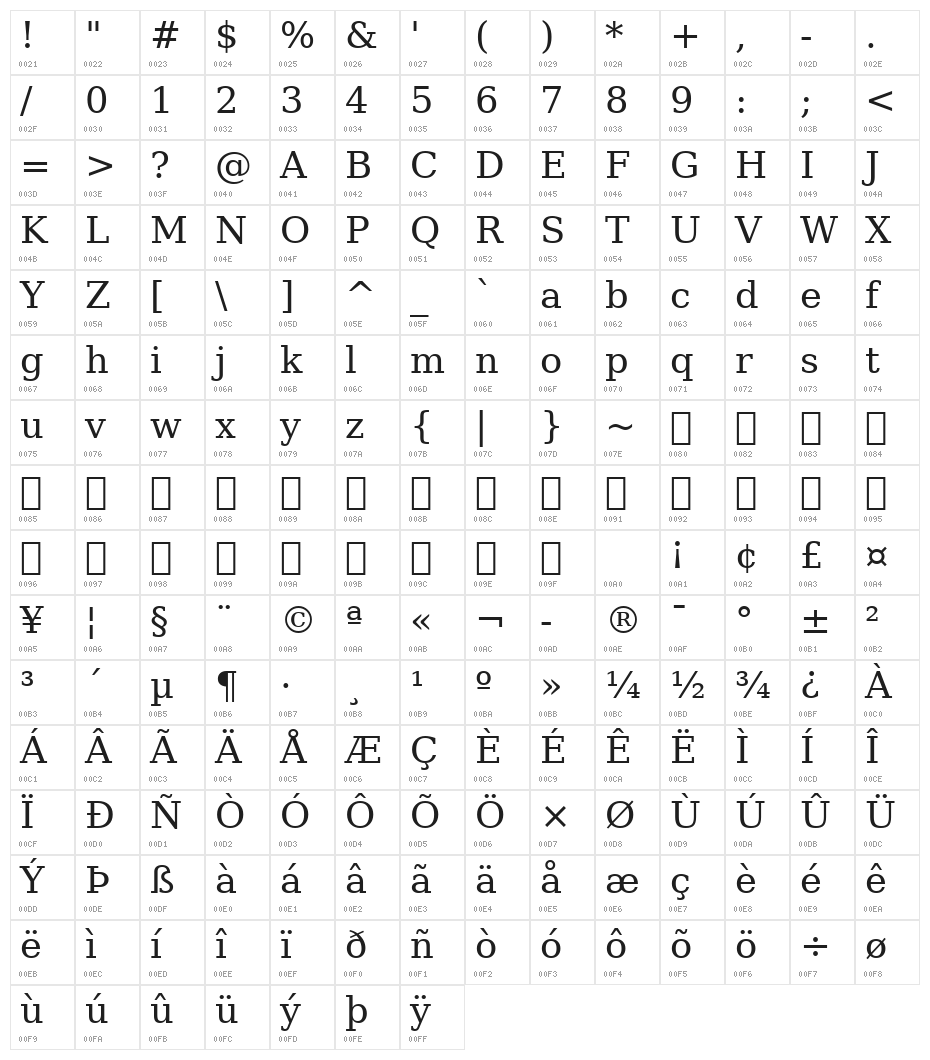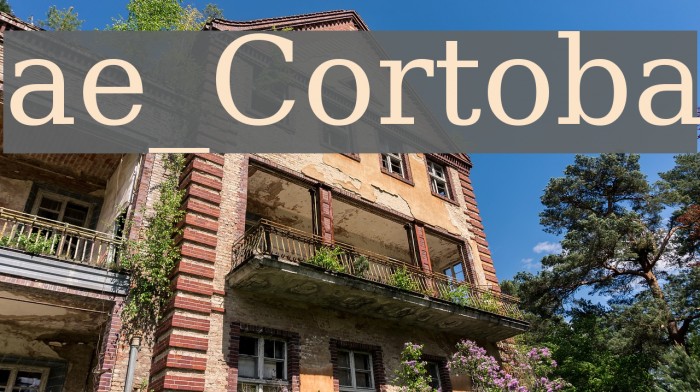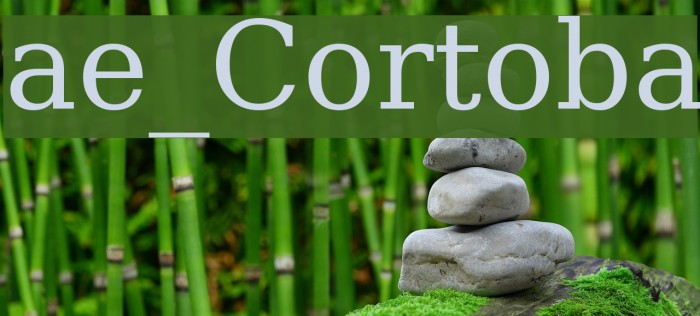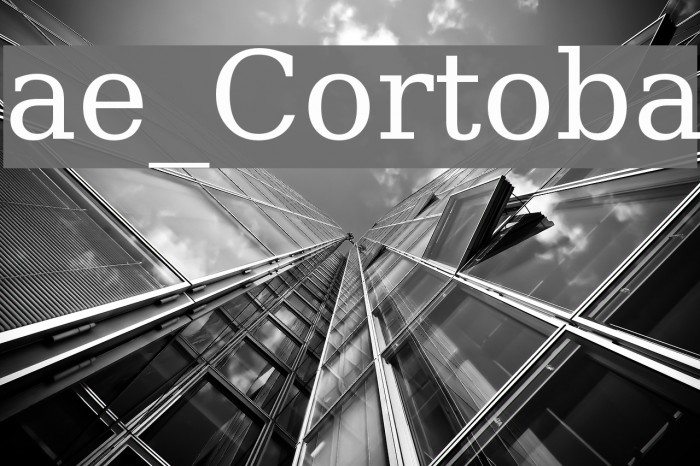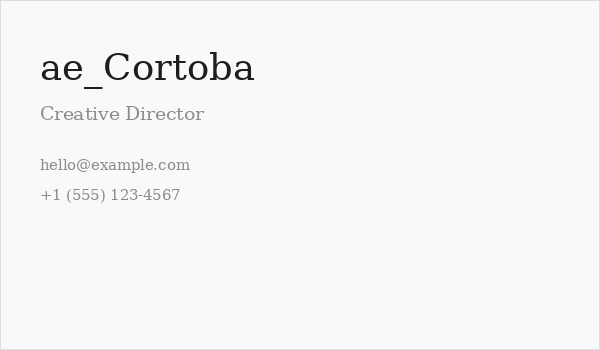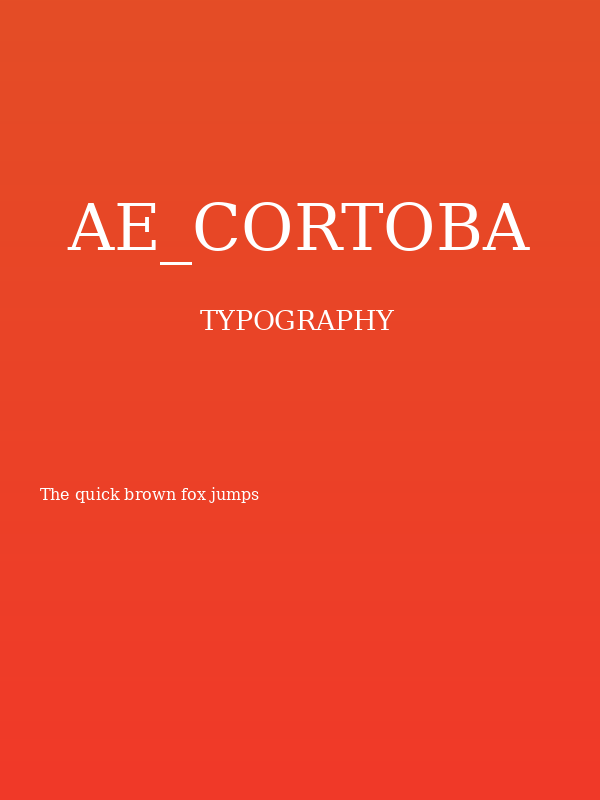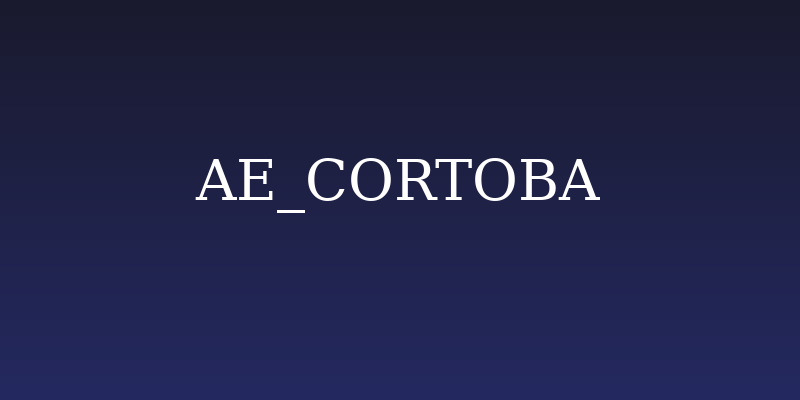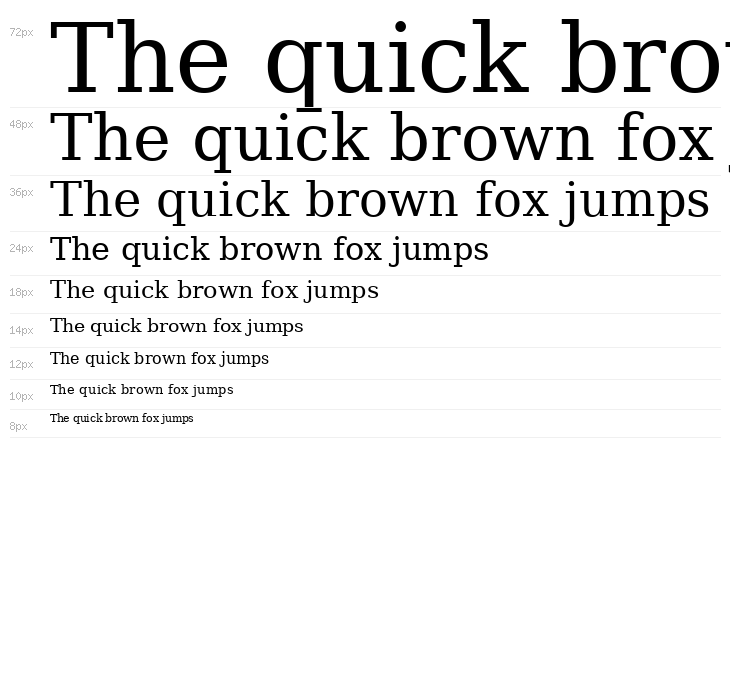
ae_Cortoba Font
ae_Cortoba Description
This font features a classic serif style with elegant and refined strokes. The uppercase letters are bold and commanding, while the lowercase letters maintain a balanced and harmonious appearance. The numerals are clear and legible, making them suitable for a variety of uses. The special characters are well-integrated, maintaining the overall aesthetic of the font. The design is timeless, offering a sense of sophistication and professionalism.